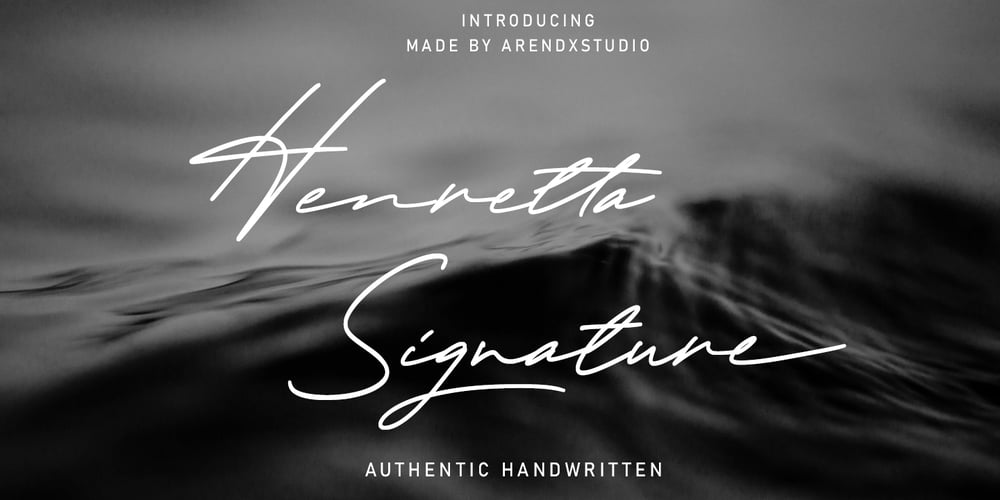
Henretta Signature Font Family was designed by Asep Rendi and published by Arendxstudio. Henretta Signature contains 1 styles and family package options. Henretta Signature is a handwritten signature script with a natural & stylish flow. This script is perfect for personal branding but also works well for many applications, wedding invitations, advertising and more.Features : • Character Set A-Z • Numerals & Punctuation (OpenType Standard) • Accents (Multilingual characters) • Ligatures • SwashesThere it is! I really hope you enjoy it – comments & likes are always welcome and accepted. More importantly, don’t hesitate to send a message if you have a problem or question.